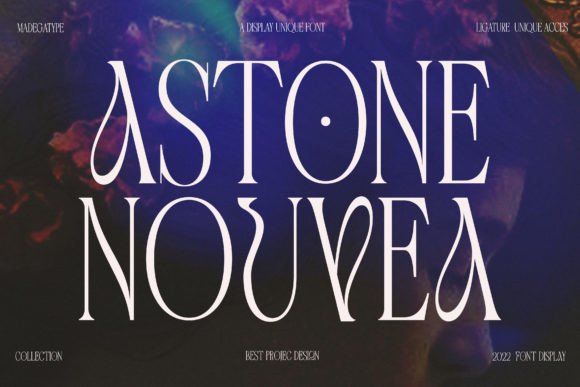
As I began working on the project, I realized that finding the right font was crucial to meeting my client’s expectations. That’s when I stumbled upon **Astone Nouvea**, a serif font that would change the game. In this article, I’ll share my experience with Astone Nouvea, its features, and how to make the most of it in your designs.
Astone Nouvea: The Perfect Font for Elegant Designs
Astone Nouvea is a unique and elegant serif font, specifically designed for brand and logo designs. Its distinctive style makes it perfect for creating classy, elegant, and unique logos that will set your clients apart. With Astone Nouvea, you’ll be able to fulfill those tricky client requests for a logo that’s both stylish and sophisticated.
- ✅ Elegant and refined design, perfect for luxury brands
- ✅ Unique serif style that sets it apart from other fonts
- ✅ Versatile and adaptable to various design contexts
- ⚠️ Limited availability of condensed or extended versions
- ⚠️ Some users may find the font too ornate for certain design projects
The Story Behind Astone Nouvea
Astone Nouvea was designed with the intention of creating a unique and elegant serif font that would cater to the needs of luxury brands and high-end designs. The designer aimed to craft a font that exudes sophistication and refinement, while still being versatile and adaptable to various design contexts.
Q: What makes Astone Nouvea unique?
A: Astone Nouvea’s unique blend of elegance and refinement, combined with its distinctive serif style, sets it apart from other fonts.
Q: Is Astone Nouvea suitable for body text?
A: While Astone Nouvea is highly legible, it’s best suited for headlines, titles, and short-form content. For longer body text, consider pairing it with a complementary font.